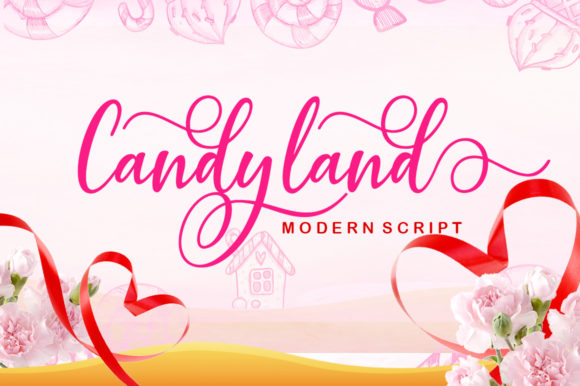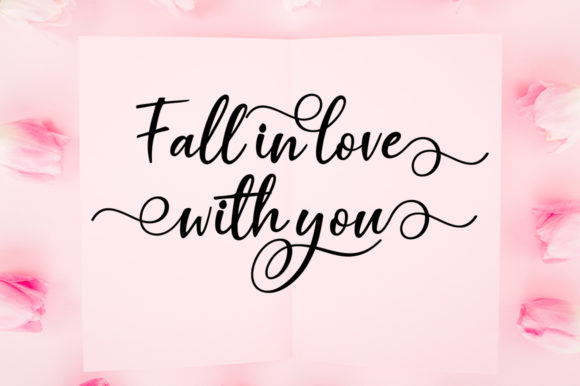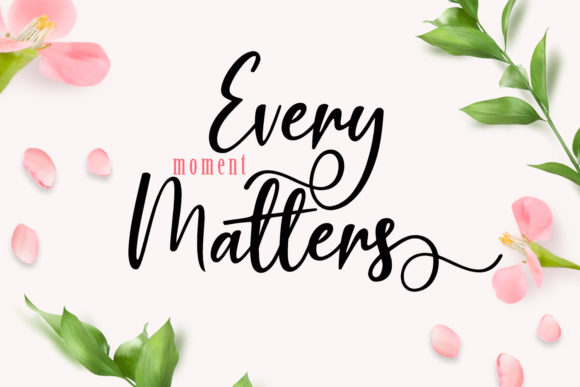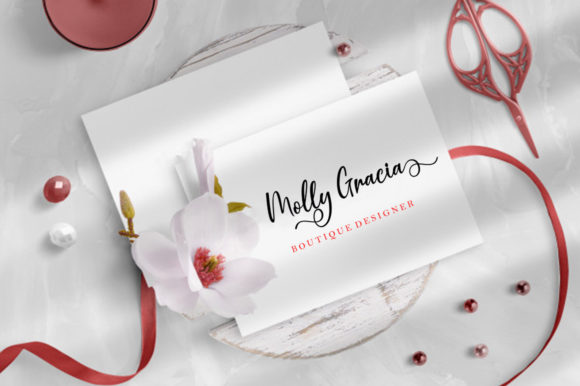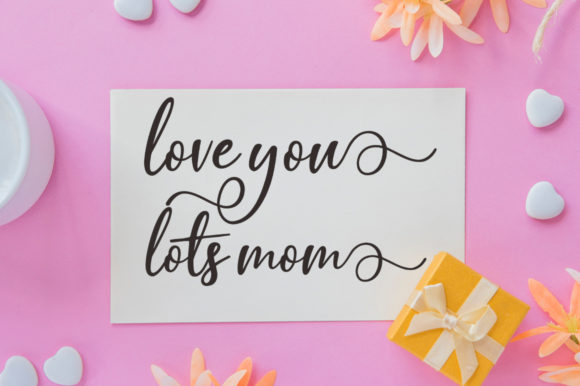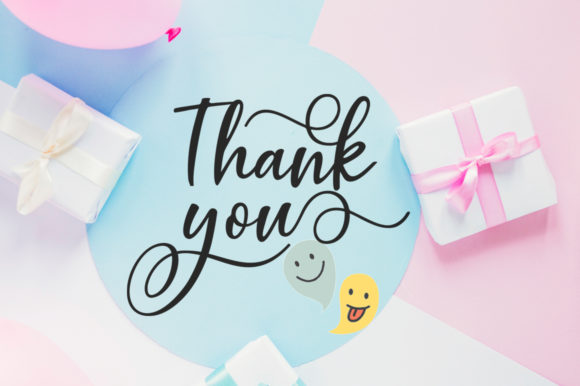
HomeScript FontsCandyland Font Script Fonts Candyland Font FacebookXPinterestWhatsApp Candyland Font Poster 2 Candyland Font Poster 3 Candyland Font Poster 4 Candyland Font Poster 5 Candyland Font Poster 6 Candyland Font Poster 7 About Candyland Font Candyland is an incredibly stunning script font with bold swashes. Fall in love with is modern elegance! DOWNLOAD NOW People also explored Opening Christmas Font Linx Aommyra Font Stone Head Font Tasty Tempeh Font Govis Ranic Font Trostie Love Font Brithan Signature Font Ansagia Metta Font 286 0 TagsCandyland Font Previous articleChigland FontNext articleBarokatt Font LEAVE A REPLY Cancel reply Comment: Please enter your comment! Name:* Please enter your name here Email:* You have entered an incorrect email address! Please enter your email address here Website: Save my name, email, and website in this browser for the next time I comment. Personal Use Free Dealerplate California Personal Use Free Read more about this font Velasco Personal Use Free Read more about this font Kinda Sweet Personal Use Free Read more about this font Letter Clips Personal Use Free Read more about this font BLOG The 10 Best Handwriting Fonts to Add Personality to Your Designs 10 of the Best Handwriting Fonts for Adding Personality to Your Designs There will undoubtedly be no other better choice than handwriting fonts to give... Top 10 Handwritten Fonts That Elevate Your Designs Exploring Font Trends Free vs Paid Fonts: Why Investing in Premium Fonts Is Worth It